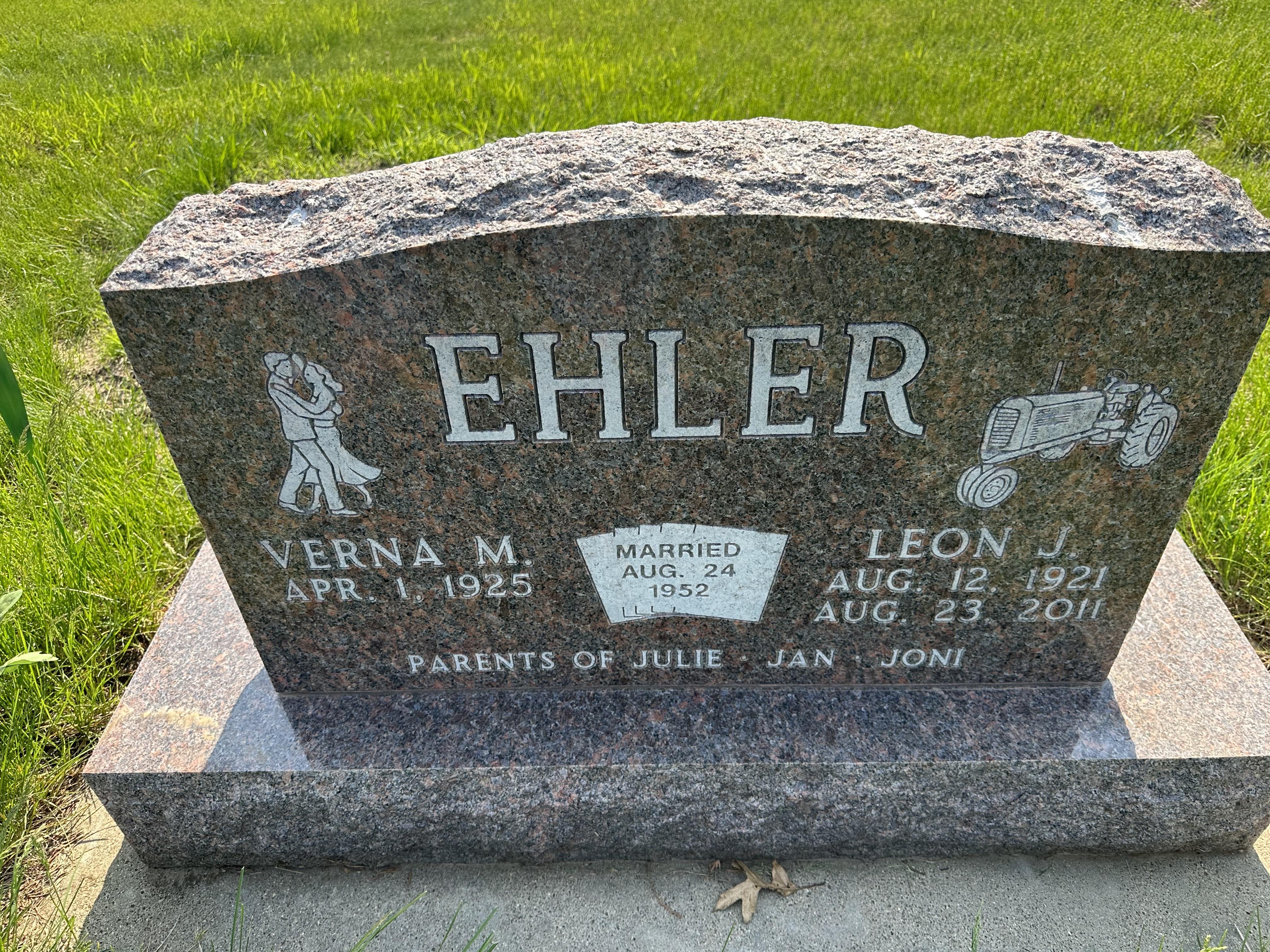
Font ID please
Any ideas on this? The low crossbar in the “A” is making it hard to identify.
It looks like roman wide bar frosted outline.?
Unfortunately, this specific Frosted Outline alphabet is something I’ve never seen before and is likely a custom font. There is nothing like this in any of the monument industry design software font catalogs I’ve seen, nor the pre-digital plastic and metal alphabet catalogs. The lowered crossbar on the ‘A’ mimics the SKS Double Outline at the smallest sizes, but none of the other characters match it.